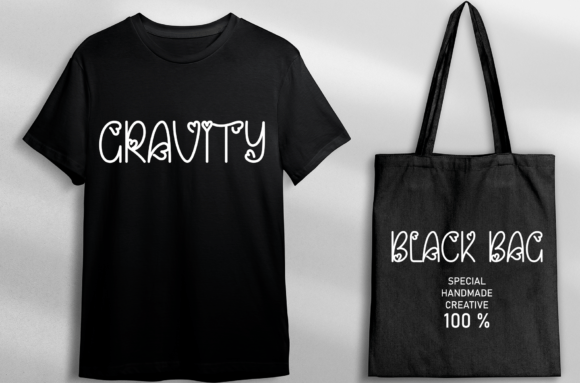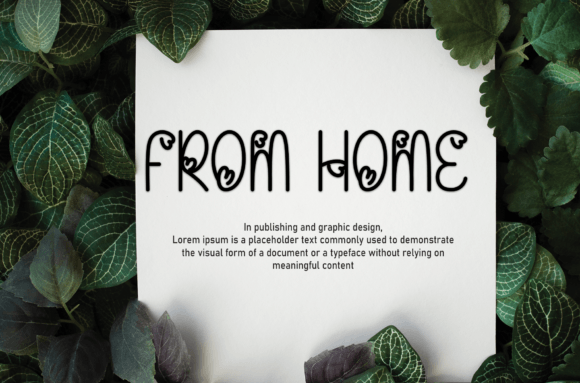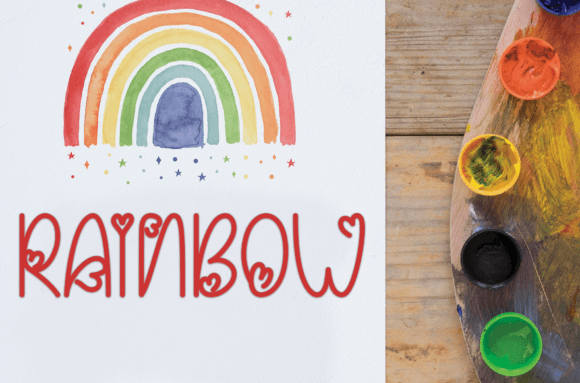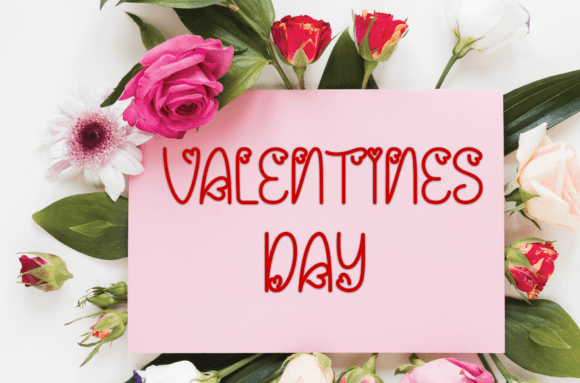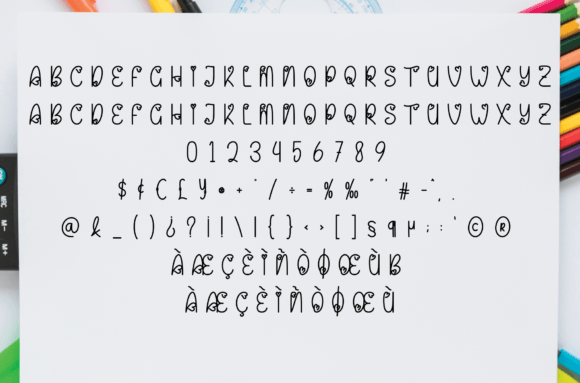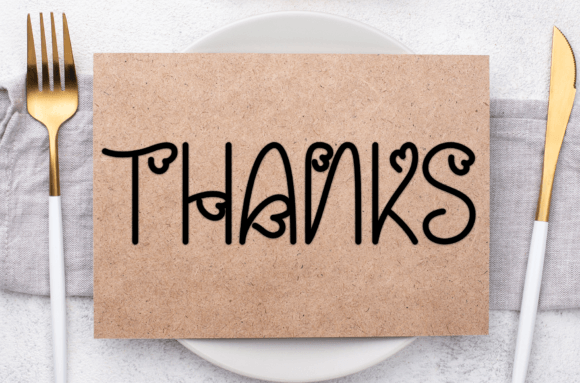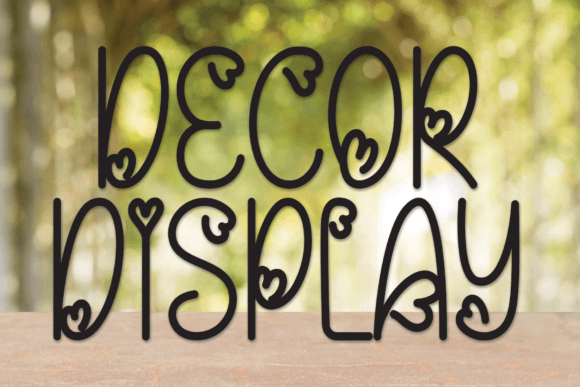
Introducing Decor Display Font: Add a Sweet and Friendly Touch to Your Designs
Are you looking for a font that can add a playful and charming touch to your designs? Look no further than Decor Display Font! This sweet and friendly handwritten display font is perfect for creating eye-catching wedding invitations, cards, and other designs that require a fun and whimsical feel.
What Makes Decor Display Font So Special?
Decor Display Font is a unique and carefully crafted font that is designed to bring a sense of joy and playfulness to your designs. Its handwritten style gives it a personal and approachable feel, making it perfect for designs that require a touch of warmth and personality.
One of the standout features of Decor Display Font is its versatility. Whether you’re designing a wedding invitation, a greeting card, or a social media graphic, this font is sure to add a touch of whimsy and fun to your design. Its sweet and friendly style makes it perfect for a wide range of design projects, from formal events to casual celebrations.
Why Choose Decor Display Font for Your Designs?
There are many reasons why Decor Display Font is an excellent choice for designers and crafters. Here are just a few:
• Cute and Fun Style: Decor Display Font has a playful and charming style that is sure to add a touch of fun to your designs.
• Handwritten Style: The font’s handwritten style gives it a personal and approachable feel that is perfect for designs that require a touch of warmth and personality.
• Versatile: Decor Display Font is versatile and can be used for a wide range of design projects, from formal events to casual celebrations.
• Easily Readable: Despite its playful style, Decor Display Font is easily readable, making it perfect for designs that require a clear and concise message.
How to Use Decor Display Font in Your Designs
Using Decor Display Font in your designs is easy! Here are a few tips to get you started:
• Pair it with Other Fonts: Decor Display Font pairs well with other fonts, such as sans-serif fonts, to create a visually appealing design.
• Use it for Headings: Decor Display Font is perfect for headings and titles, adding a touch of whimsy and fun to your design.
• Add it to Your Digital Designs: Decor Display Font can be used for digital designs, such as social media graphics, blog posts, and email newsletters.
• Use it for Print Designs: Decor Display Font is also perfect for print designs, such as wedding invitations, cards, and flyers.
Who Can Benefit from Using Decor Display Font?
Decor Display Font is perfect for a wide range of designers and crafters, including:
• Wedding Designers: Decor Display Font is perfect for creating beautiful and unique wedding invitations, save-the-date cards, and other wedding-related designs.
• Graphic Designers: Graphic designers can use Decor Display Font to add a touch of whimsy and fun to their designs, making them stand out from the crowd.
• Crafters: Crafters can use Decor Display Font to create personalized and unique designs for their craft projects, such as cards, gift tags, and other paper crafts.
• Social Media Influencers: Social media influencers can use Decor Display Font to add a touch of personality to their social media graphics and posts.
Decor Display Font is a sweet and friendly handwritten display font that is perfect for adding a touch of whimsy and fun to your designs. Its versatility, cute and fun style, and easily readable design make it an excellent choice for designers and crafters. Whether you’re designing a wedding invitation, a greeting card, or a social media graphic, Decor Display Font is sure to add a touch of personality and charm to your design.